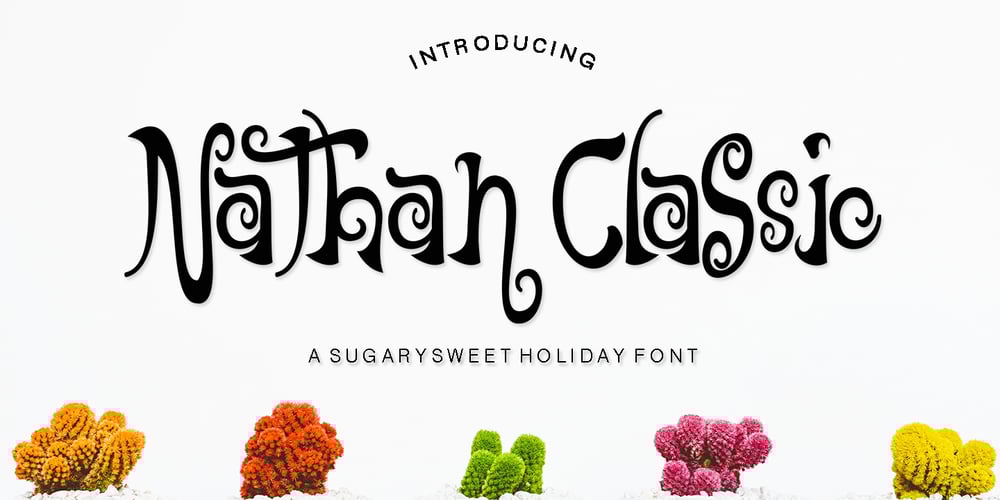
Nathan Classic Font Family was designed by Ikhsan Maulana and published by IM Studio. Nathan Classic contains 1 styles and family package options. Nathan Classic is a sweet and unique design. This font is very suitable for products, logos, invitation letters and many others.